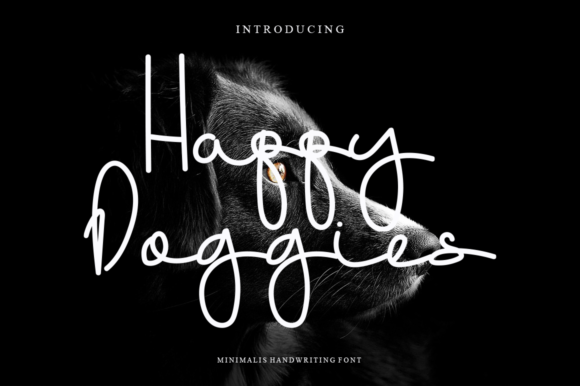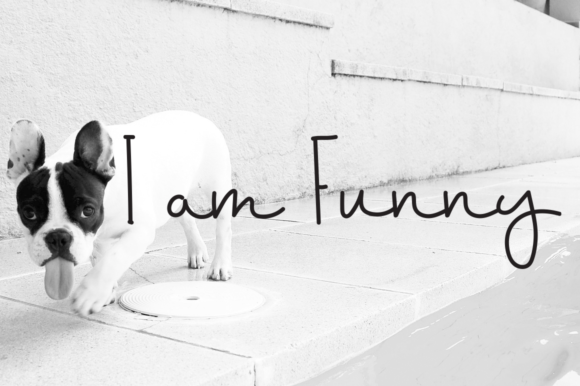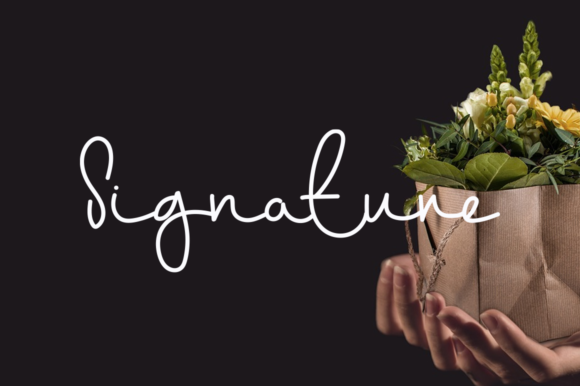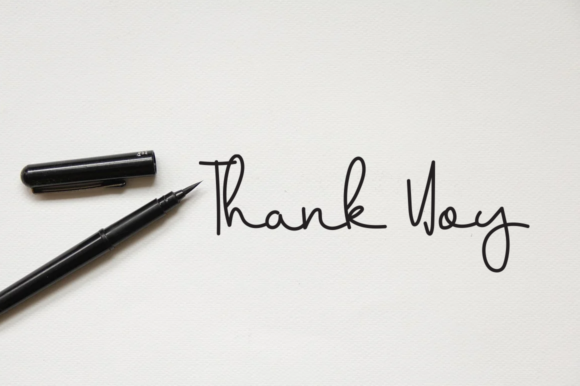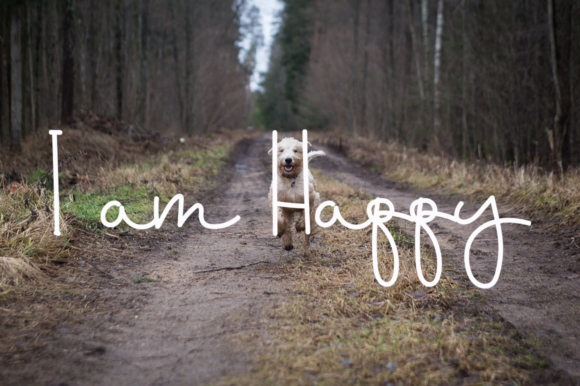
Happy Doggies Font
About Happy Doggies Font
Happy doggies is a dainty, genuine and cursive handwritten font. This gentle font will look gorgeous on a variety of design ideas. It will add a joyful and romantic touch to each of your projects!